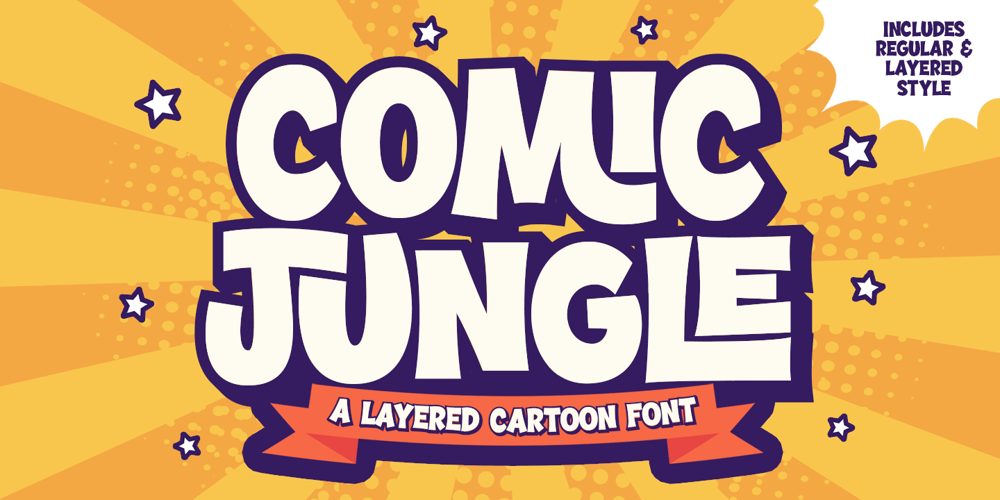
Comic Jungle Font Family was designed by Bangkit Tri Setiadi and published by Blankids. Comic Jungle contains 2 styles and family package options. Hello, awesome people! This time, we have a new font called Comic jungle a playful cartoon font combination by Blankids Studio.Comic jungle , a playful cartoon font combination is made for any professional project branding, such as logotype, comic, watermarks, poster, branding, promotions, product packaging, etc. Every letter has a cartoon and comic style design. This font comes in 2 font combination regular and extrude.Comic jungle font includes a full set of sporty uppercase and lowercase letters, numerals and punctuation. This font has a cartoon style. See the previews above to get some inspiration on how to use them. Happy designing!The font support has an OpenType feature that can be opened by various graphic software programs, such as Canva, Adobe Illustrator, Adobe Photoshop, Adobe InDesign, and Corel Draw.Support Language:Afrikaans, Albanian, Asu, Basque, Bemba, Bena, Breton, Catalan, Chiga, Cornish, Danish, Dutch, English, Faroese, Filipino, Friulian, Galician, German, Gusii, Indonesian, Irish, Italian, Kabuverdianu, Kalenjin, Kinyarwanda, Luo, Luxembourgish, Luyia, Machame, Makhuwa-Meetto, Makonde, Malagasy, Manx, Morisyen, North Ndebele, Norwegian Bokmål, Norwegian Nynorsk, Nyankole, Oromo, Portuguese, Quechua, Romansh, Rombo, Rundi, Rwa, Samburu, Sango, Sangu, Scottish Gaelic, Sena, Shambala, Shona, Soga, Somali, Spanish, Swahili, Swedish, Swiss German, Taita, Teso, Uzbek (Latin), Vunjo, Zulu